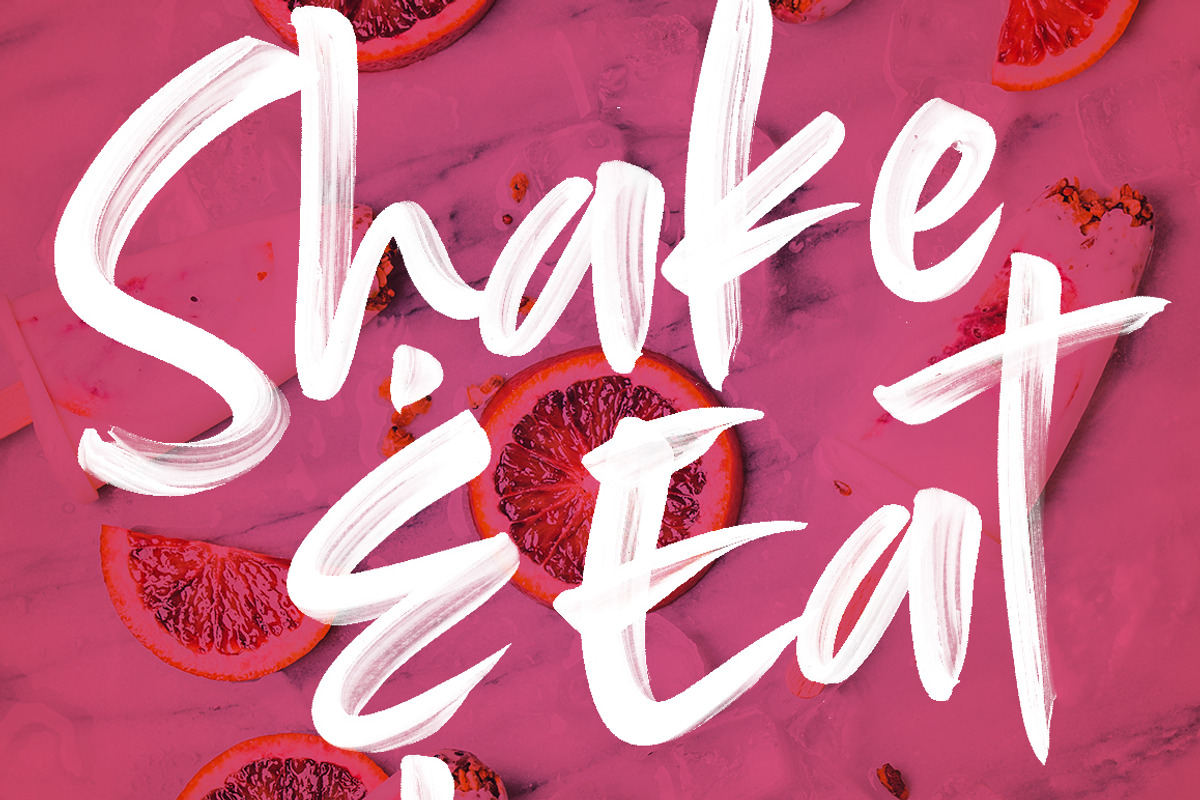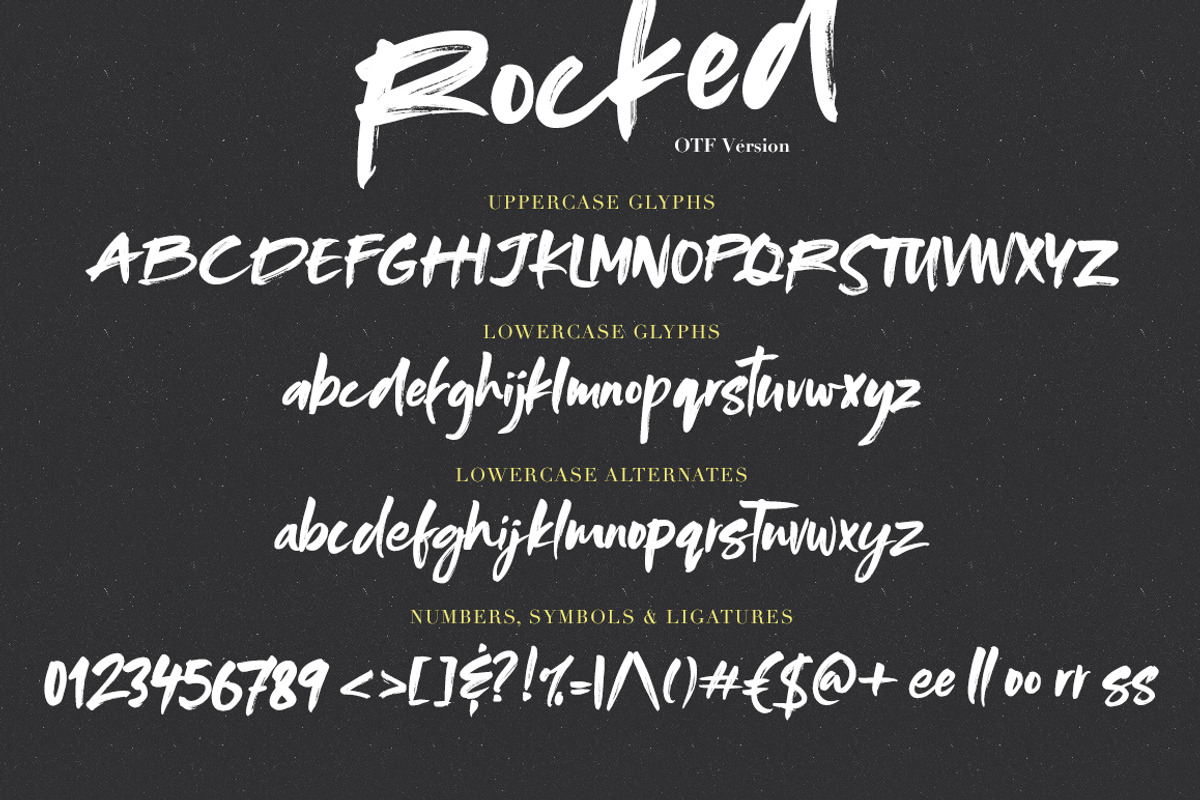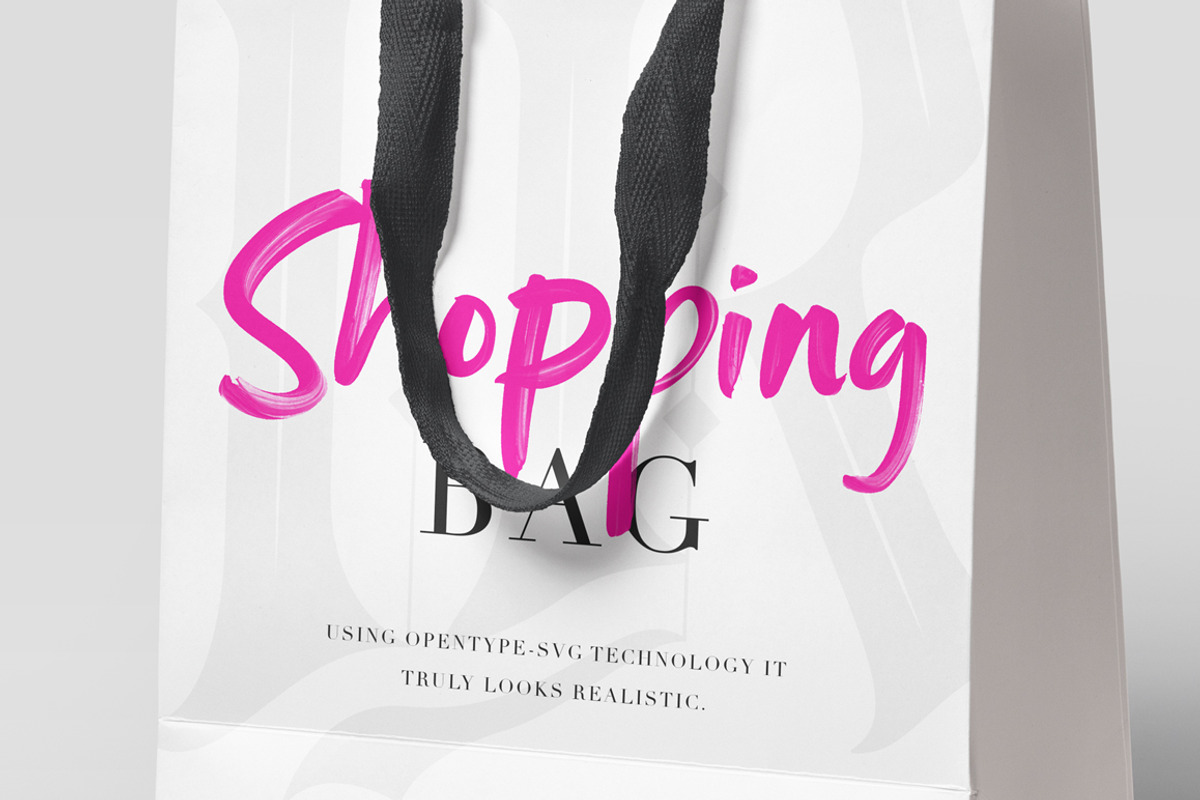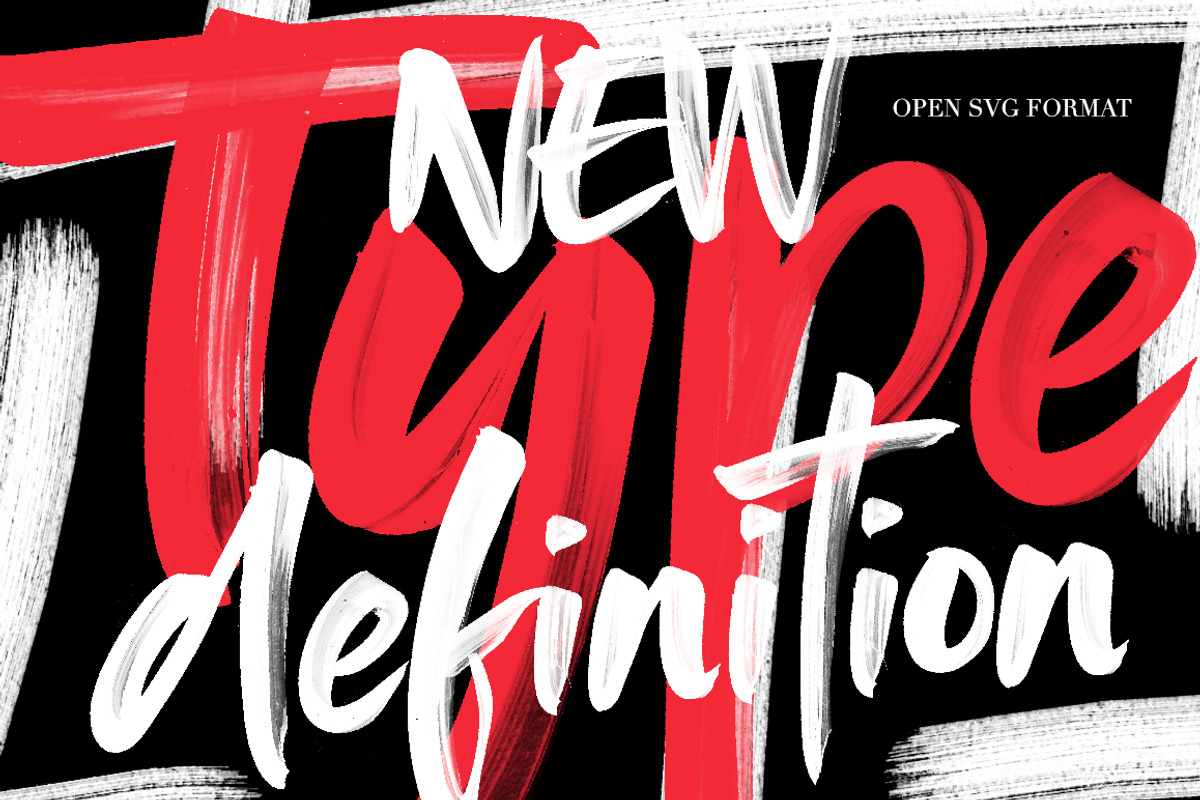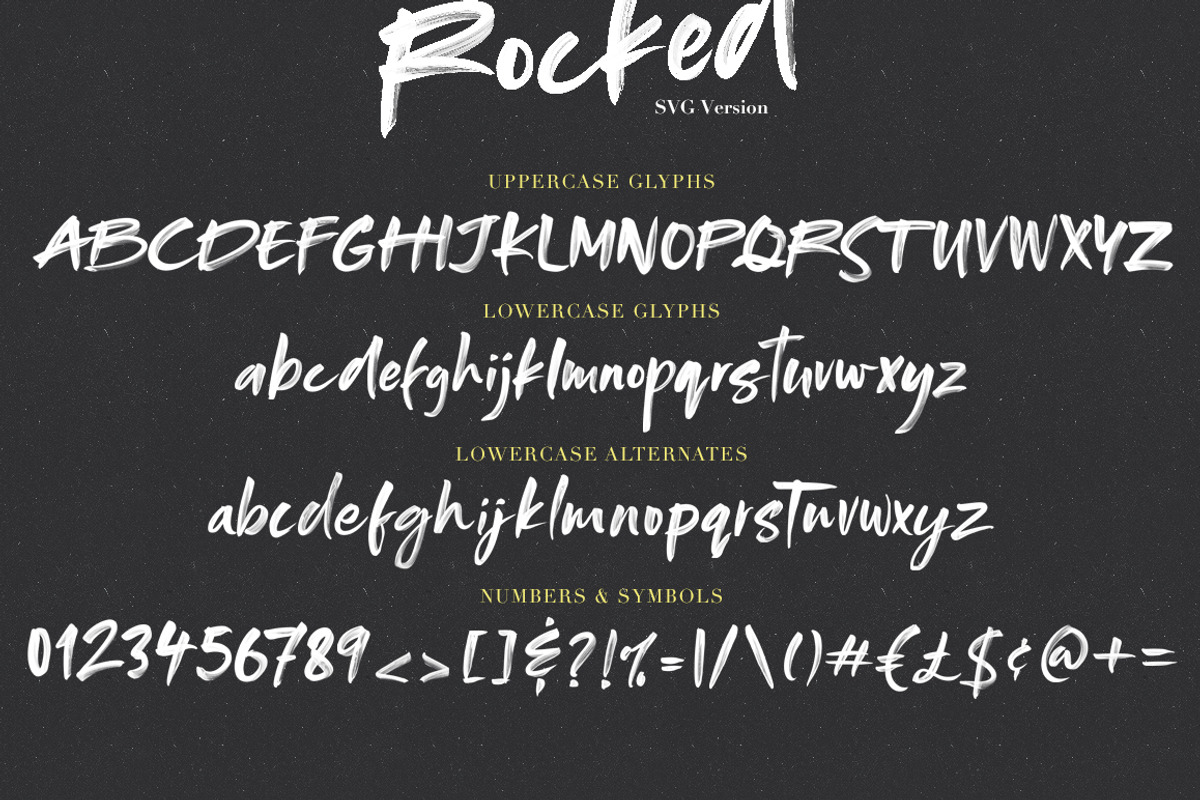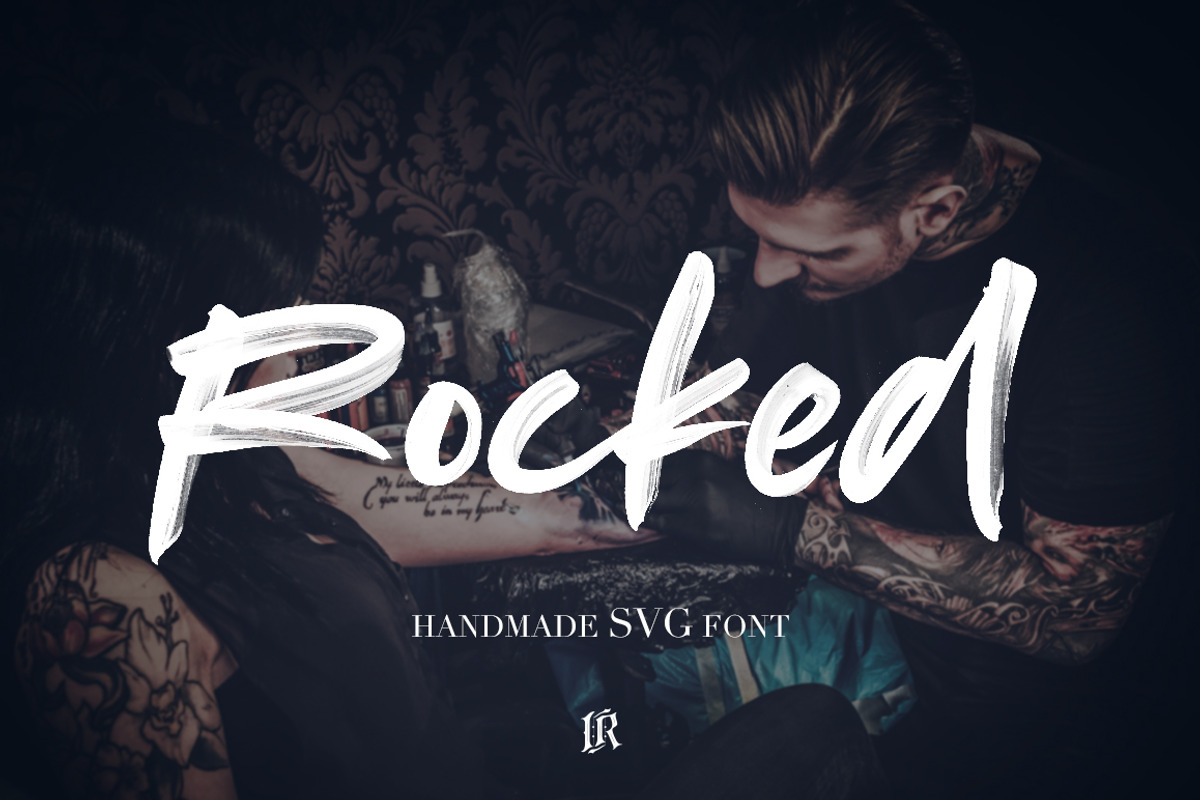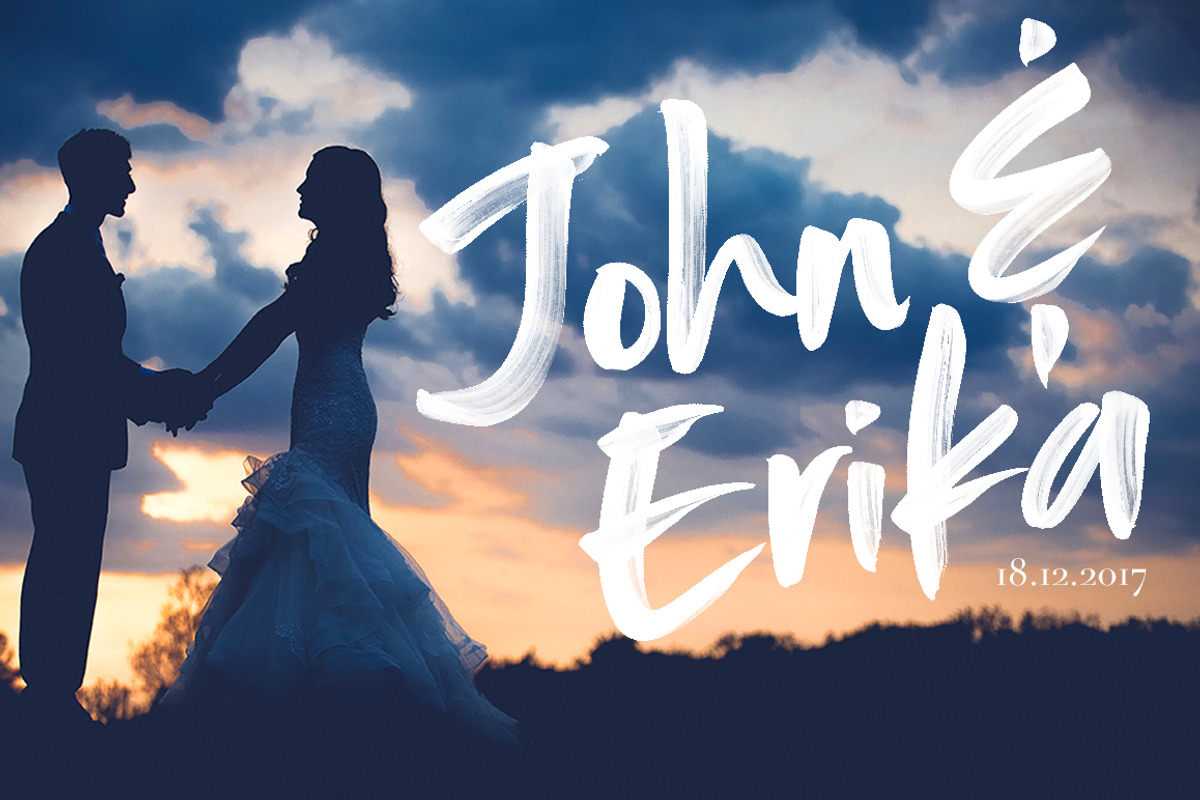
Rocked SVG Font
Rocked font preserves all the high definition detail of the original handwritten letters. Using OpenType-SVG technology it truly looks realistic. The OpenType-SVG format requires Photoshop CC 2017 or Illustrator CC 2018 (or newer). Regular OTF format is also included.
- Rocked OpenSVG Font A high definition OpenSVG brush font with realistic texture (You need to be using Photoshop CC 2017.1.1 or later)
- Rocked OpenSVG Font ALT Alternates to the original lowercase glyphs (You need to be using Photoshop CC 2017.1.1 or later)